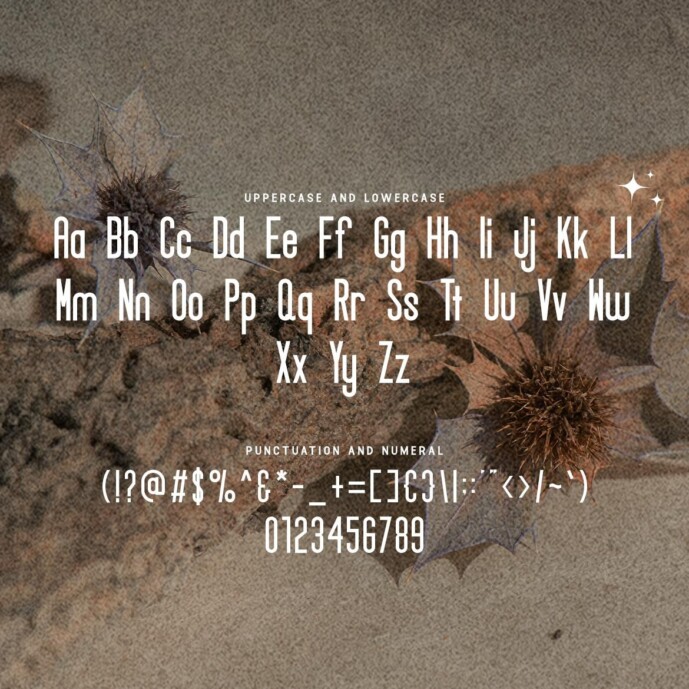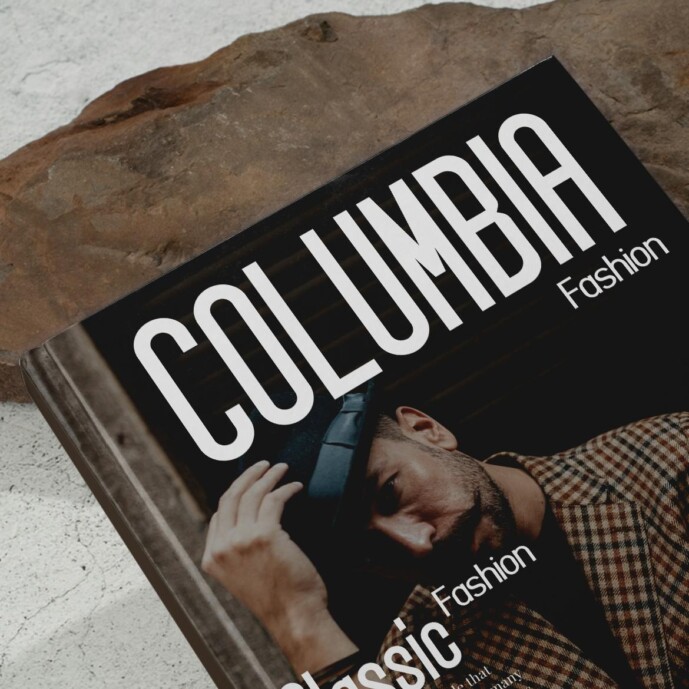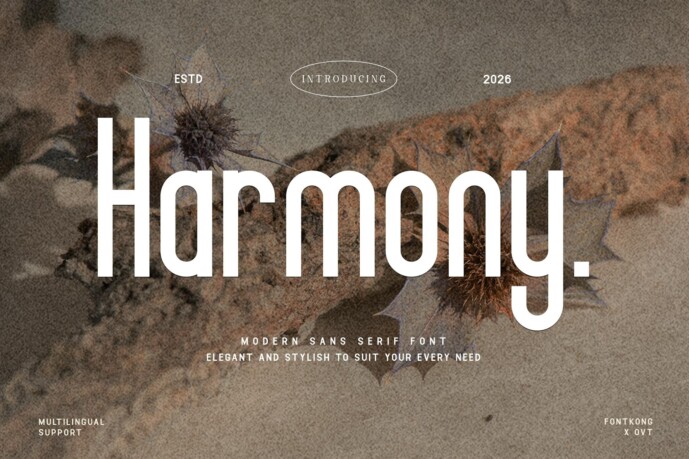
Harmony Sans Font
Harmony Sans Font a modern sans serif font that exudes elegance and simplicity. Perfect for creating a clean, contemporary look, this versatile typeface is ideal for a wide range of design projects, from branding and editorial to web and mobile interfaces.
“Harmony” includes a full set of uppercase and lowercase letters, numbers, punctuation, and special characters. Its clean lines and balanced proportions make it an excellent choice for logos, headlines, body text, and minimalist designs. The font’s refined aesthetic ensures clarity and readability, making it suitable for both print and digital applications.
With multilingual support, “Harmony” is designed to appeal to a global audience. Its subtle sophistication and modern appeal make it a favorite among designers looking for a typeface that is both timeless and contemporary. Whether you’re working on a corporate identity, lifestyle magazine, or high-end website, “Harmony” delivers a polished, professional finish.